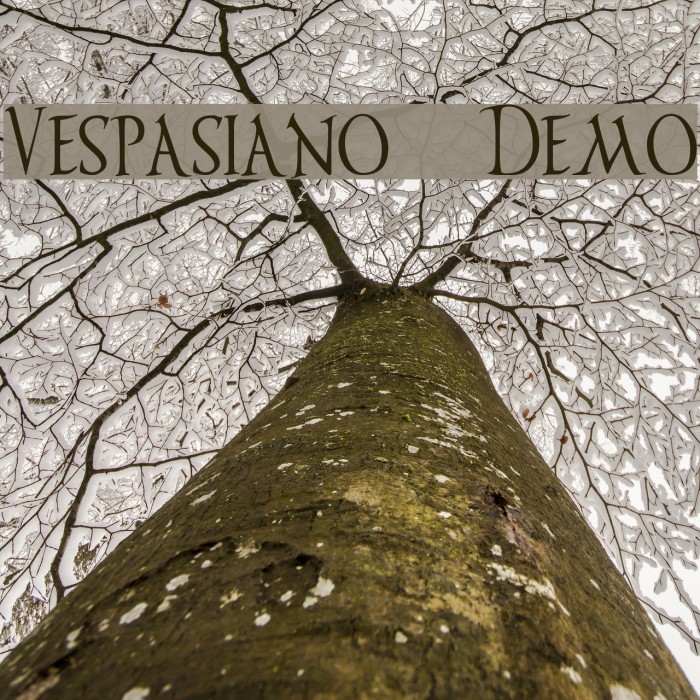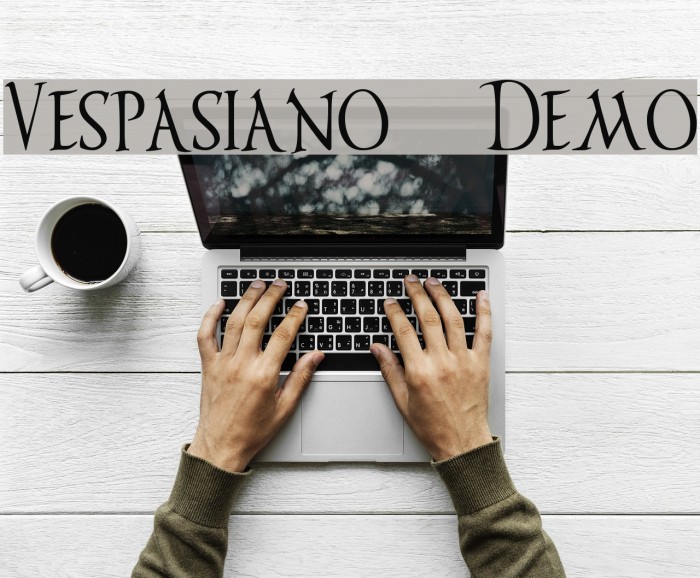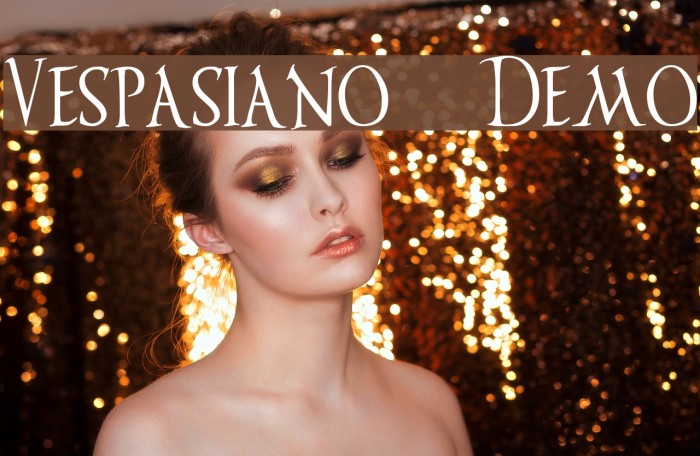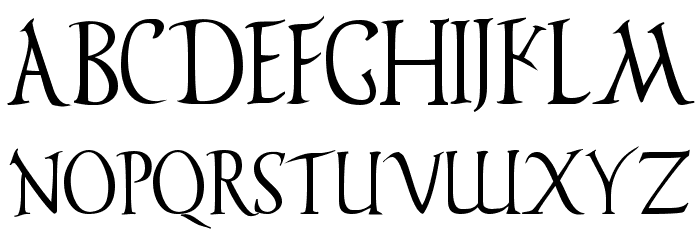
Vespasiano Demo Font
Fonts by The Scriptorium - Dave Nalle
| 用途 | Headlines, Logos, Decorative text |
| おすすめプロジェクト | Ideal for invitations, certificates, book covers, and branding that seeks a historical or sophisticated aesthetic. |